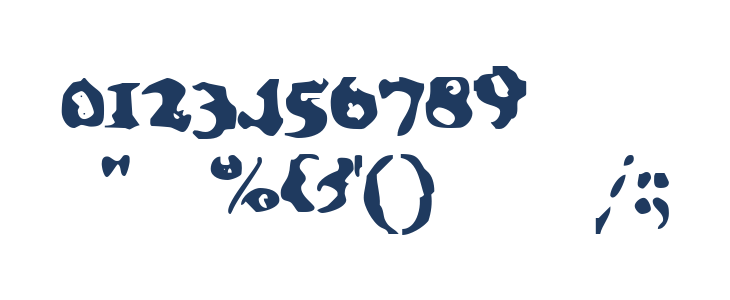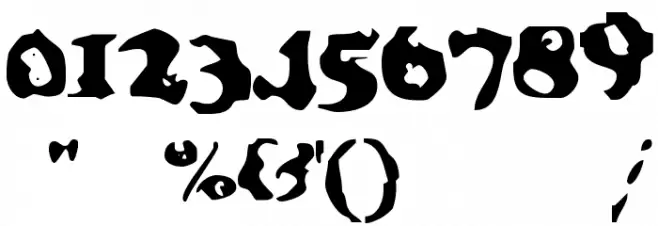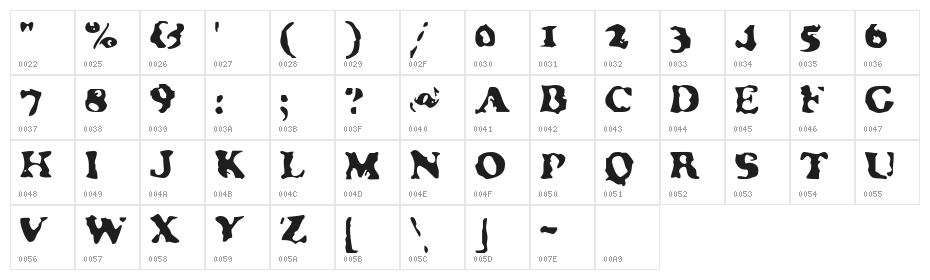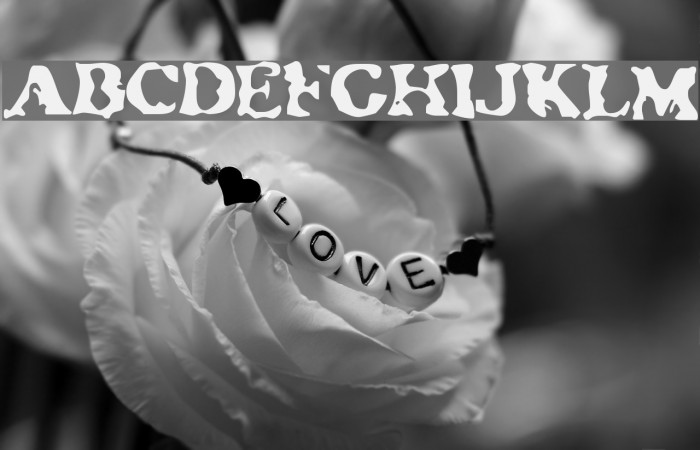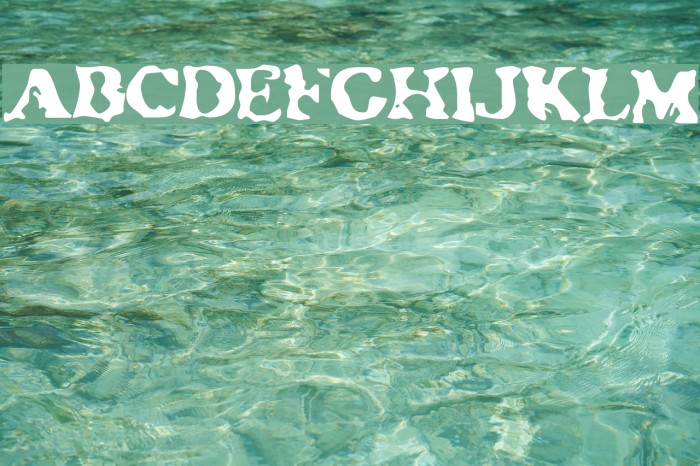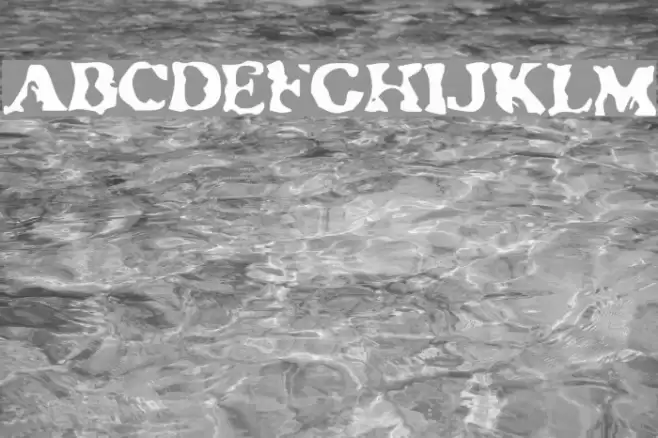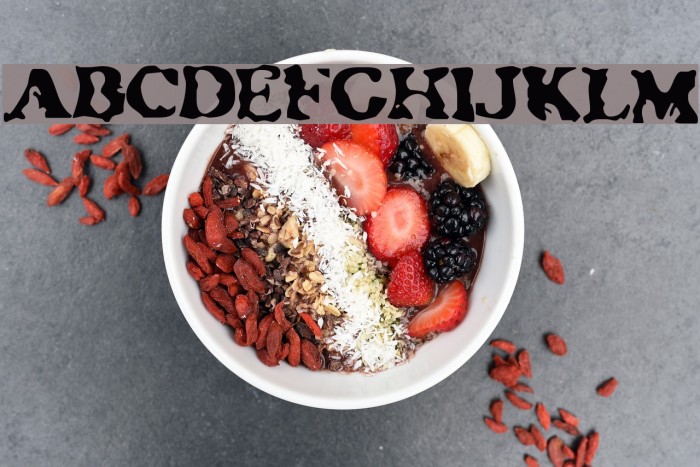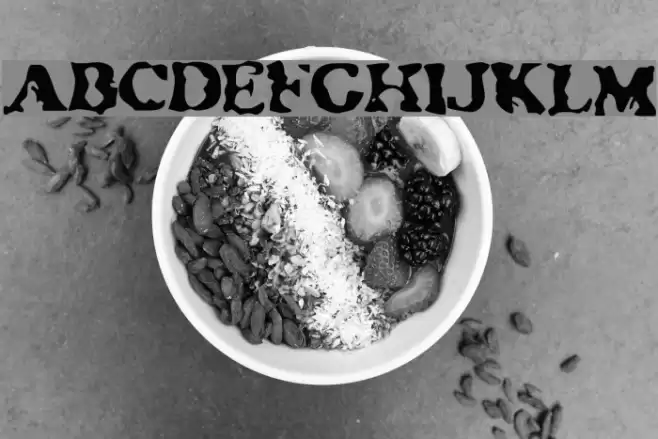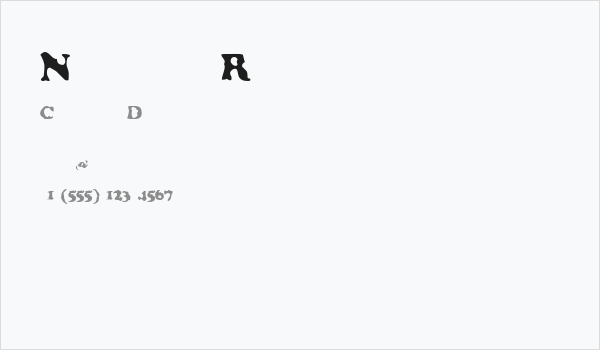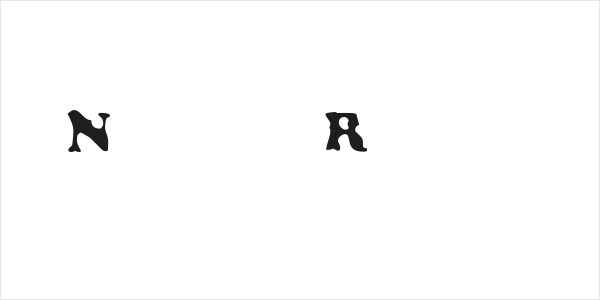
NeatifiedRegular Font
NeatifiedRegular Description
This font exhibits a bold and artistic style with a unique, irregular pattern that gives it a hand-crafted appearance. The characters are heavily stylized, featuring thick strokes and uneven edges that create a dynamic and eye-catching look. The uppercase letters are particularly striking, with exaggerated forms and a playful, almost whimsical quality. The numbers and special characters maintain this bold aesthetic, ensuring consistency across the entire character set. This font is ideal for projects that require a strong visual impact and a touch of creativity.